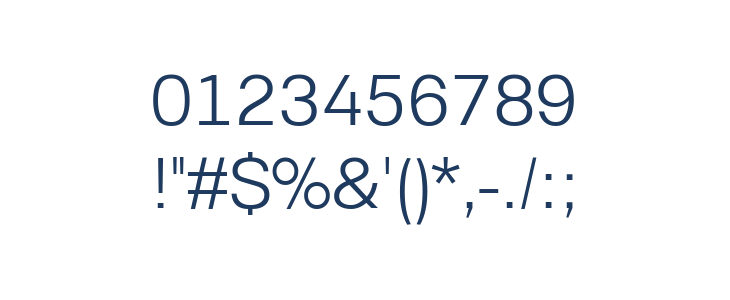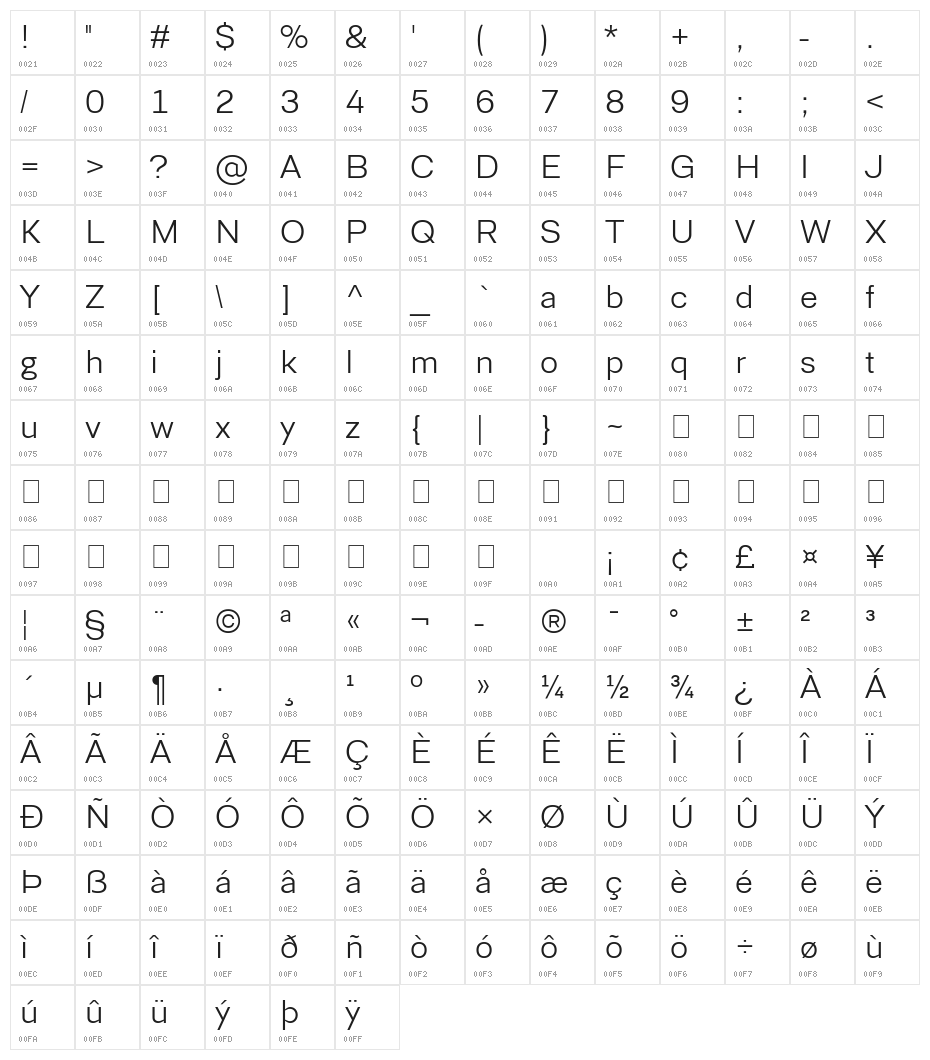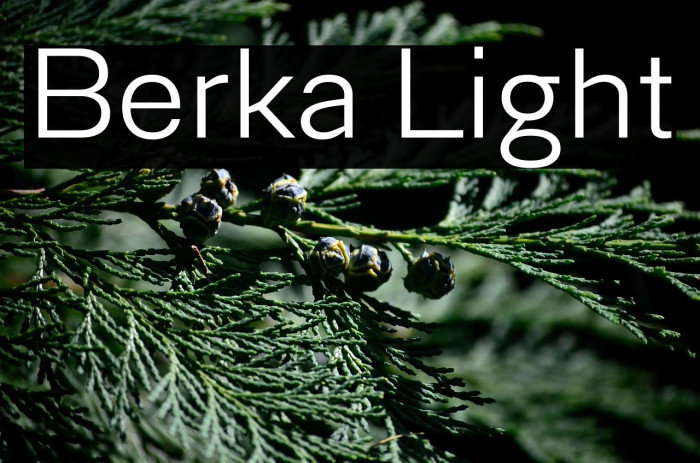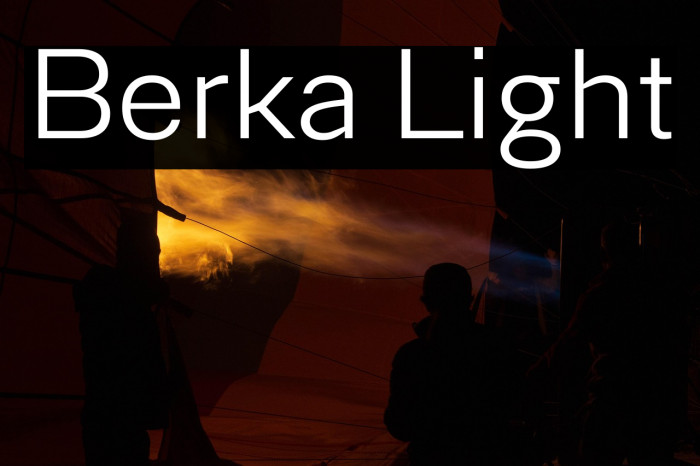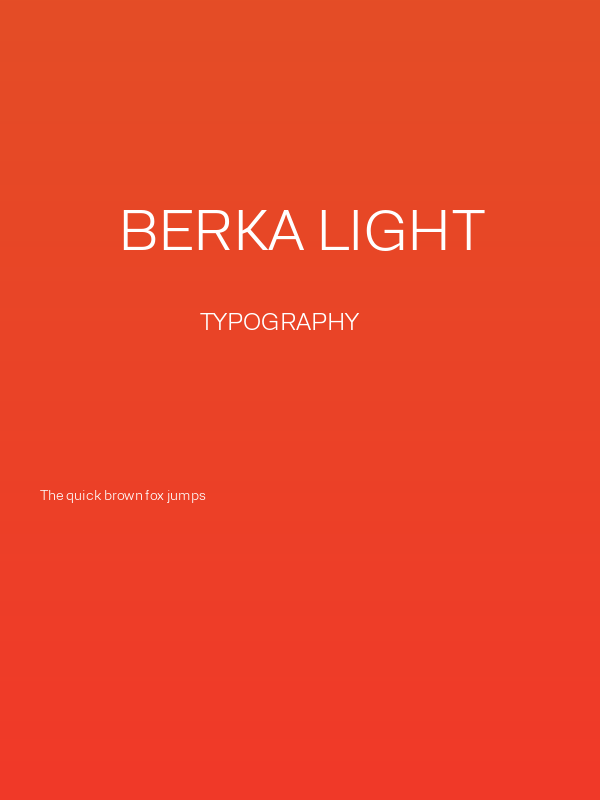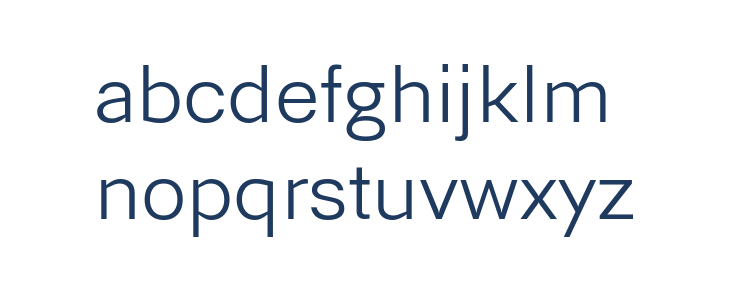
Berka Light Font
| Progetti proposti | Ideal for branding, web design, corporate materials, and user interfaces due to its clarity and modern appeal. |